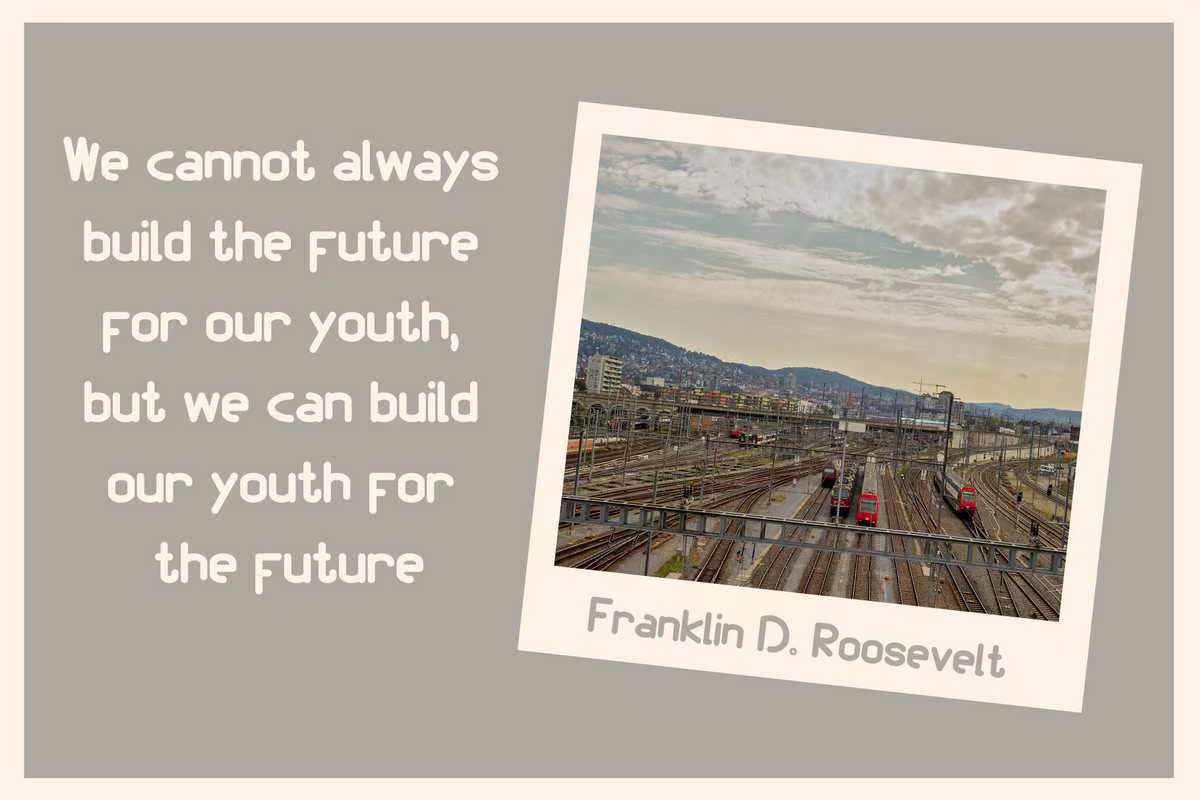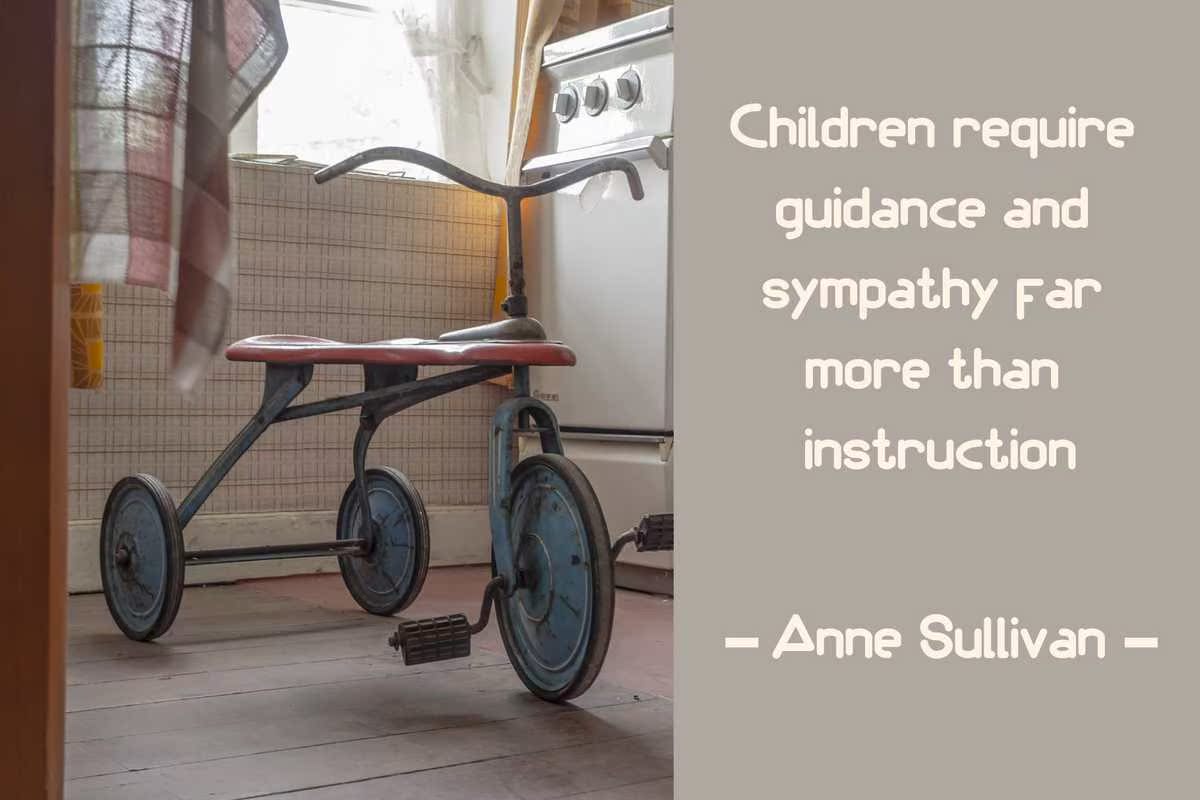
HimenzBoldModernFont.SetofMulticoloredBrightLetters刷新说明和YourDesign.VectorillInstruction.Isolatedonwhitebackground.HimenzBoldModernFont.SetofMulticoloredBrightLetters刷新说明和YourDesign.VectorillInstruction.Isolatedonwhitebackground。